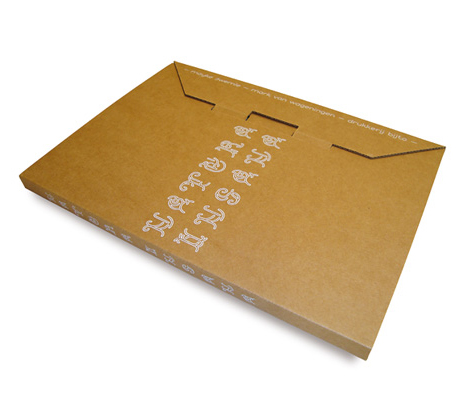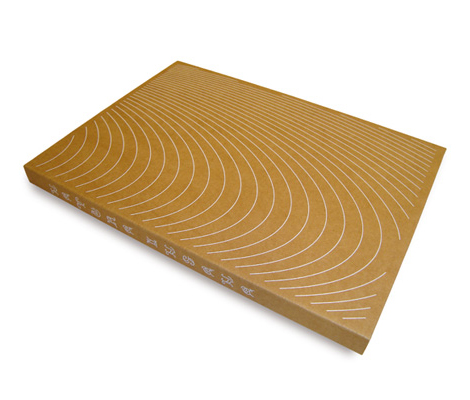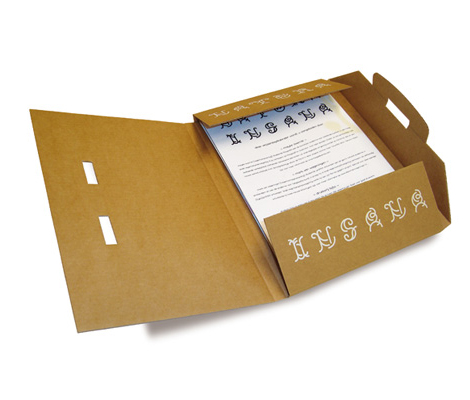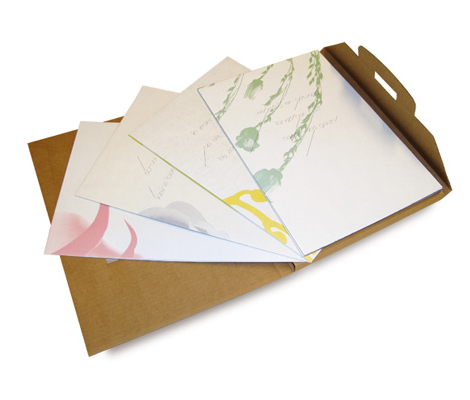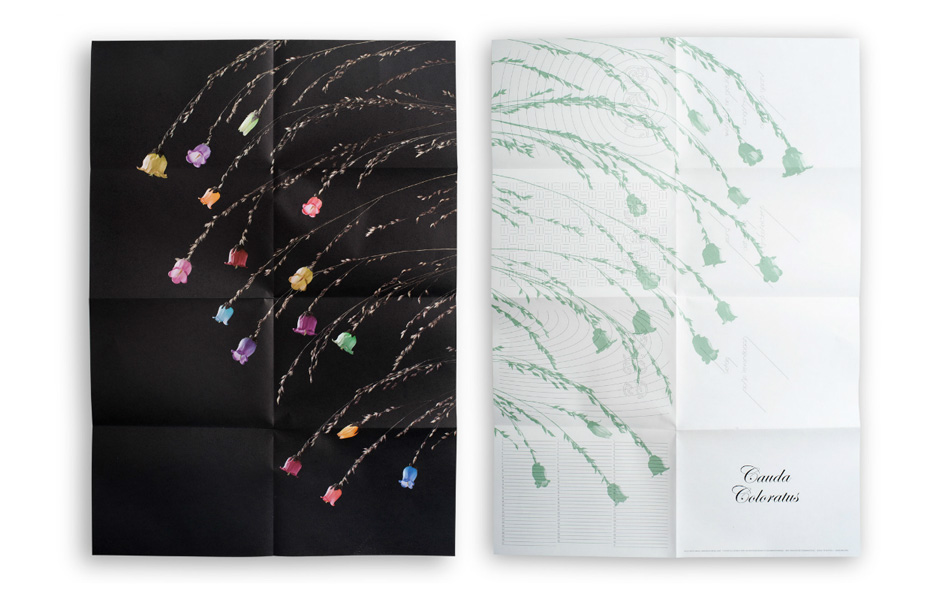
Natura insana
This four seasons-birthday calender is a special typographical project. Four folded 50 x 70 posters printed on four different kind of papers with four different Pantone colors. With recto/verso against light it will give a beautiful and romantic feel. The posters are packed in a smal cardboard box with white silkscreen-print. In collaboration with Bijto printers and photographer Mayke Swemle. For this project we used Taniyah Gagarin for the first time. Give this as a present to your beloved one. Limited edition of 600 copies. Buy the Natura Insana calender for Eur. 20,-